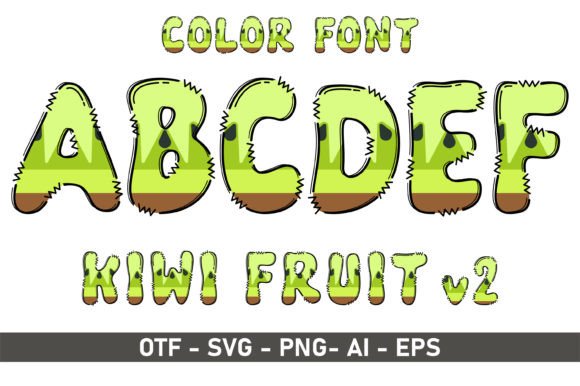
Journey into the whimsical world of Kiwi V2 Font, a vibrant creation from Veil that will ignite your creative spirit. These captivating fonts possess an air of playfulness and artistry, making them ideal for designs that demand attention. Dive into a kaleidoscope of colors and let your imagination soar as you explore the endless possibilities.
Imagine designing children's books that burst with life, their pages adorned with whimsical characters and playful words. Kiwi V2 Font will captivate young minds, transforming each page into an enchanting adventure. Its cheerful hues and intricate details will spark imaginations and make reading an unforgettable experience.
Unleash your creativity and craft stunning posters that demand attention. Kiwi V2 Font will make your message pop, whether you're promoting an upcoming event, showcasing your artwork, or simply sharing a heartfelt sentiment. Its vibrant colors and eye-catching style will ensure that your posters stand out from the crowd.
Craft invitations that ignite anticipation and excitement. Kiwi V2 Font will add a touch of magic to your special occasions, whether it's a birthday party, wedding, or corporate event. The playful nature of this font will create a sense of joy and excitement, setting the perfect tone for your celebration.
Design greeting cards that warm hearts and spread joy. Kiwi V2 Font will transform your heartfelt words into visual masterpieces. Its colorful characters and intricate details will add a personal touch to your messages, making them truly unforgettable. Let your loved ones feel the warmth of your sentiments through these beautifully crafted cards.
Whether you're a seasoned designer or just starting your creative journey, Kiwi V2 Font will elevate your projects to new heights. Its versatility and charm will bring life to your designs, leaving a lasting impression on those who encounter them. Don't let ordinary fonts hold you back - embrace the extraordinary with Kiwi V2 Font today!